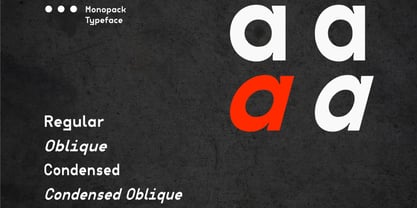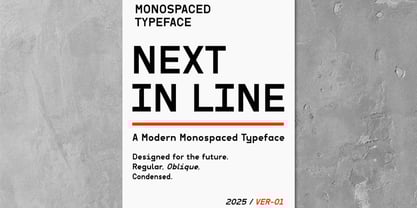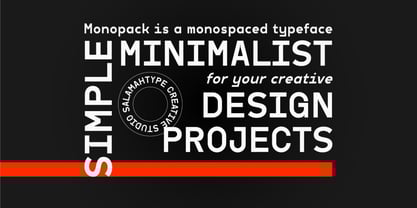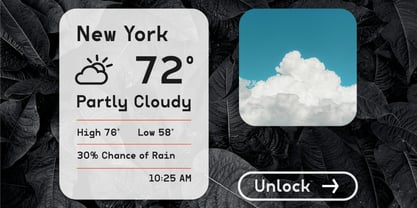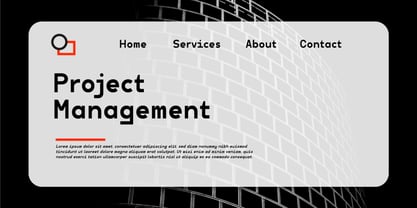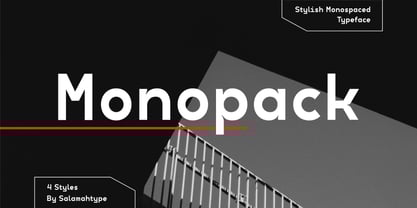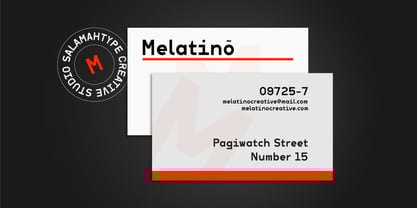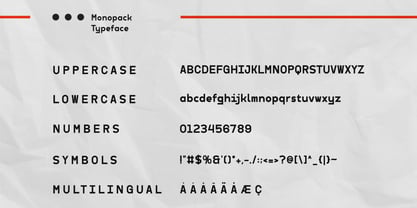
Monopack
by Salamahtype
The Monopack Font Family was designed by Aswangga Sadike and published by Salamahtype. Monopack contains 4 styles and family package options. More about this family
Monopack is a modern monospace font with 4 styles: Regular, Oblique, Condensed, and Condensed Oblique. It features small inktraps on some characters, giving it a unique and stylish look while staying clean and readable. Monopack works great for titles, logos, interfaces, and any design that needs a clean and technical feel.
Monopack includes:
– Uppercase and lowercase
– Symbols
– Alternates
– Ligatures
– Multilingual support
Designers: Aswangga Sadike
Foundry: Salamahtype